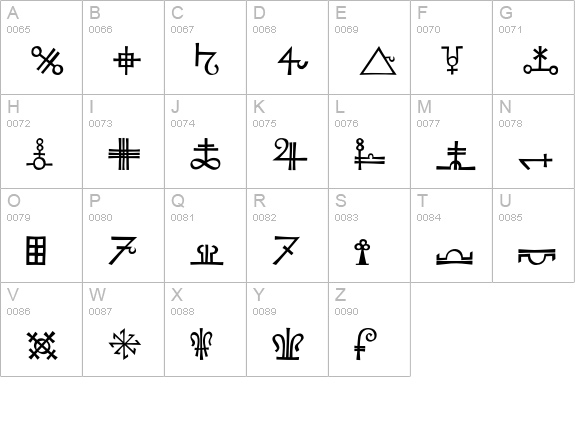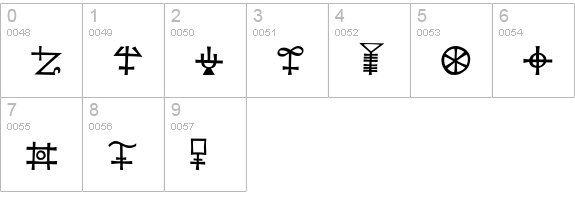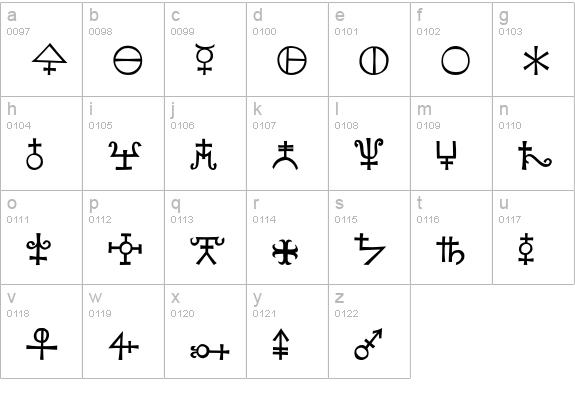
KochSignsFour Font Details
KochSignsFour is a bold and eye-catching display font that is sure to make a statement in any design project. Its unique geometric shapes and sharp edges give it a modern and edgy look that is perfect for headlines, posters, and branding materials. This font is available for free download at FontsMarket.com, making it accessible to designers and creatives looking to add a touch of sophistication to their work without breaking the bank. With its clean lines and stylish design, KochSignsFour is a versatile font that can be used in a variety of projects to create a bold and memorable impact.